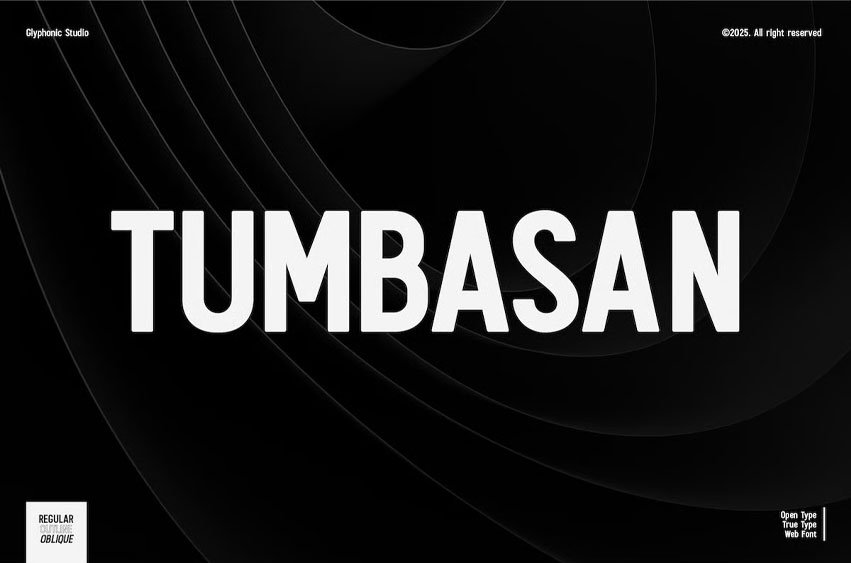
Tumbasan Font is designed with a modern and minimalist aesthetic in mind. This versatile font is perfect for all design needs, from print materials to digital media. Geometric shapes give it a contemporary feel that will add a touch of sophistication to any project.
The font’s design is based on a simple and legible sans serif style, with just the right balance of thickness and spacing to ensure clarity and ease of reading. Its simple, elegant lines and smooth curves make it a great choice for a variety of design applications, including branding, advertising, packaging, and editorial design.